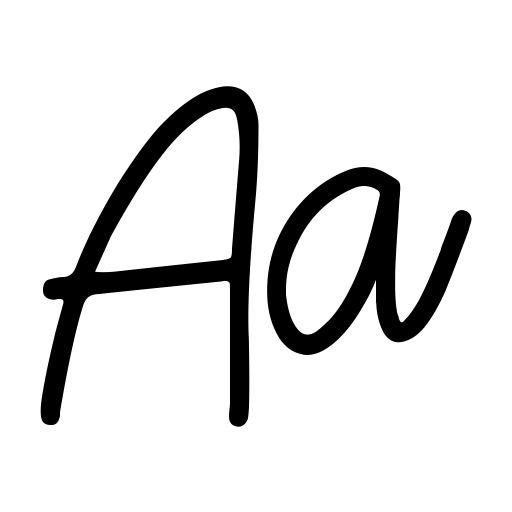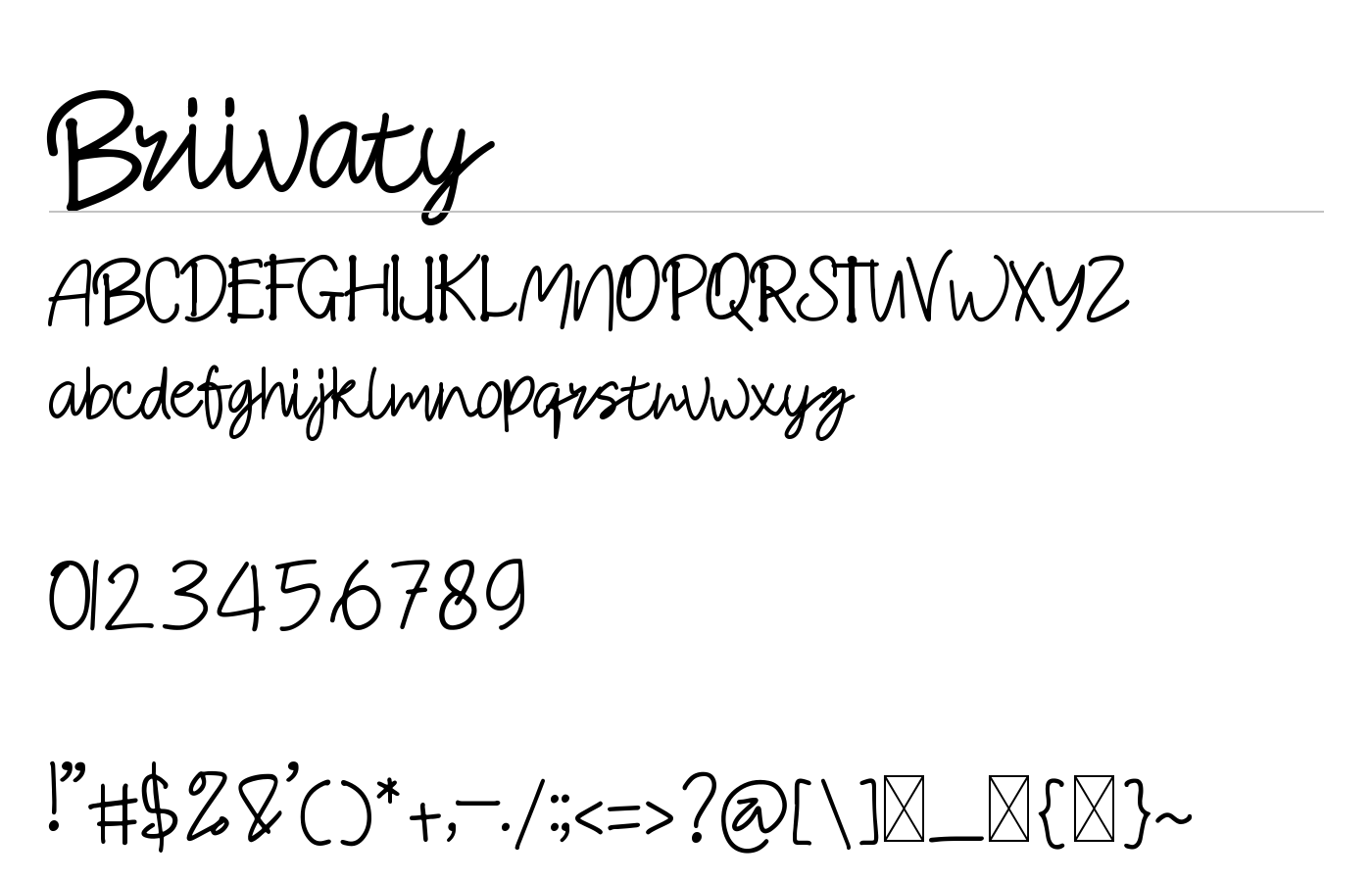
Briivaty is a casual, handwritten script font with a lively and friendly character, featuring smooth, fluid strokes that mimic natural penmanship. Its tall, narrow letterforms with moderate spacing give it a playful yet approachable feel, perfect for creative projects, personal branding, and informal communications. This font works well in logos, invitations, and social media graphics where a personal and warm touch is desired.
Briivaty Font
About Briivaty Font
| Font family | Briivaty Font |
| Designer | Yumnacreative |